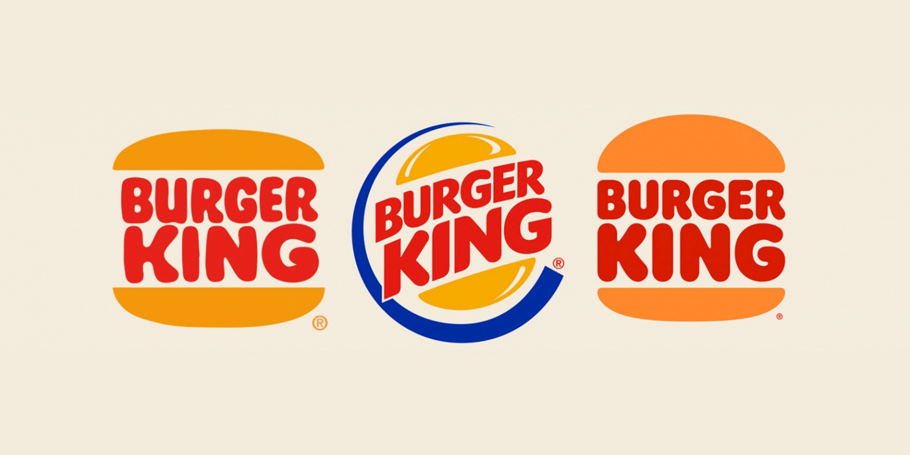
Burger King: Soft serve digital and the importance of nostalgia during a crisis.
“ Nostalgia as a theme is not a driver for change, but it is a vehicle to empathy in a world that seeks familiarity and comfort during difficult times. ”
Phil Garnham, Senior Creative Type Director at Monotype Studio explores the evolution of type in digital and celebrates the heritage at the heart of the Burger King rebrand.
In recent years you would be forgiven for thinking ‘digital’ is in itself a visual trend of geometric typography combined with a vaporwave gradient, an interactive logo, sprinkled with primary shapes etc. I’m aware this is quite a sweeping one-dimensional statement. However, it’s true that this idea of ‘digital’ has created a sense of homogeneity. Brands themselves are saying that they operate on a platform of lookalikes; they often share the same space, the same visual flavour and footprint as their fiercest competitors.
Clients are demanding ‘better’ and that ‘better’ is deeper strategic thinking, going the extra mile to generate authenticity, distinction and typographic uniqueness. The accelerated digital transformation of 2020 has initiated a customer centred rethink for visual identity. How should brands look and feel in new-normal 2.0? Can a visual identity convey a genuine care for the world, the environment, us, our futures?
One thing is certain, our digital experiences will continue to be led by reading. Everything on a device is reading and brands are beginning to grapple with the nature of that reading experience with a deeper analysis of digital typography. The words we read are carried by fonts and those fonts are a voice. As a type designer working with brands I’m increasingly asked questions like ‘How can we own our tone of voice?’ ‘Does this voice represent who we are?’, ‘Should our voice be more human, more accessible, more empathetic?’
Looking to the past.
Every font has a personality profile and I think we all agree that our digital engagement should be richer and more diverse. Heritage as inspiration is not a new idea, but there is a renewed sense that brands are looking to their past to onboard a deeper meaningful engagement with consumers. There’s never been a greater call to empathise with the state of things and to do good. This aspiration and ‘look back to move forward’ approach has given birth to a typographic nostalgia, vintage type and lettering used as a means to reconnect. It’s a trend that has slowly been gathering pace ever since the Chobani (InHouse), MailChimp (Collins), Meridian (BulletProof), Dunkin, etc rebrands of recent years and the approach continues to draw widespread adoration.
JKR’s deservedly headline grabbing rebrand of Burger King speaks to this emerging type and graphic trend that celebrates a softer service warmth. Going back to the past and re-doing as new; brand heritage reimagined, ethereal wood type classics updated as crisp digital pixels. A nod to the vintage typographic era of playful swashes, fat serifs, quirky letters and vibrant colour schemes. There is comfort to be found when paying homage to the warm and soft edge physicality of these letter shapes.
Burger King’s identity as a whole is conveying warmth in a way that celebrates creativity, and the brands typographic optimism is aligned to its warm bouncy burger iconography. This sense of fun and joy, shares comfort at a time when we most need it. And significantly, the rebrand has reframed brand typography for screen. The brands new typefaces ‘Flame Serif’ and ‘Flame Sans’ by Colophon are born from Burger King’s marketing archives, and as such they feel vintage and speak to the classic soft-service typography of the classic New York burger joint.
Nostalgia as a vehicle for empathy.
‘Nostalgia’ as a theme is not a driver for change, but it is a vehicle to empathy in a world that seeks familiarity and comfort during difficult times. Designers are obsessed with the ‘iconicity’ of things, not only of logotypes, but of books, packaging, graphic ephemera. We just love this stuff. Everyone’s a collector of something. Brand leaders understand this too.
Burger King’s logo of 1969 was ripe for modern reinvention and it has been executed perfectly by Newlyn. It’s a no-nonsense logo that plays to all the flat goodness our pixelated screens can offer. It feels akin to a brand looking forward, thinking about sustainability and ‘eco branding’, another trend in its infancy. There’s worthiness about all this.
Typically brands reinvent anew or evolve. JKR jumped back and reworked the logo in the middle. It’s as if they took an eraser to their brand of 20 years and hit refresh. Co-op and North worked a similar strategy with their rework of the 1968 Co-op logo, as did NASA with ‘the worm is back’ last year. But really nostalgia as brand is not really nostalgia at all because these logos have an inherent timelessness about them. Fashions come around and these expressions of brand feel as in-sync now as they once did then.
“ Looking back is a means to graphic clarity, a one pointedness that builds on the inherent nature of service and product. ”
Phil Garnham
Type lives in culture.
That’s not to say we are going backwards. It means brands are going to the heart of who they are, relying on bold and iconic expressions of themselves to affirm a sense of security and trustworthiness. Heritage inspiration as an antidote to the world’s post-truth and brand’s evolving at their core as communication platforms evolve too. Burger King are evolving their heritage, bringing along their distinct visual equity, modernising in line with technology.
Brand Identity: Jones Knowles Ritchie
Logotype Refinement: Miles Newlyn
Custom Type: Colophon